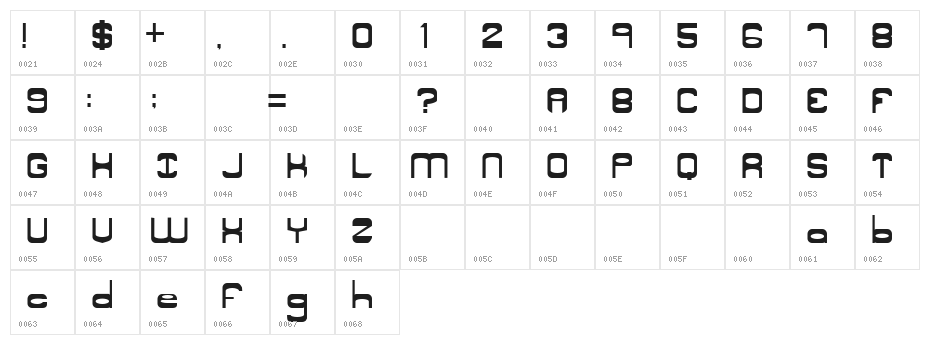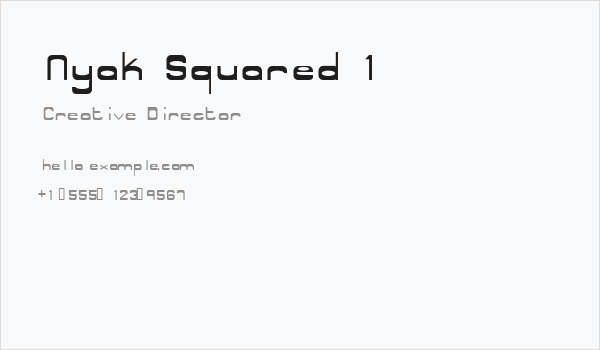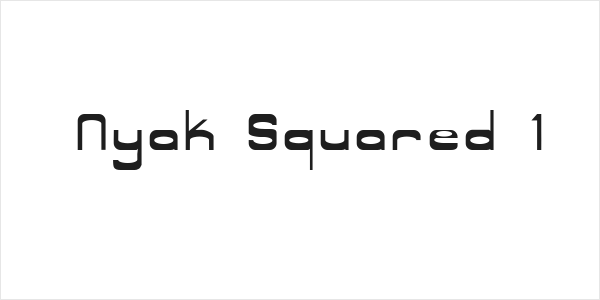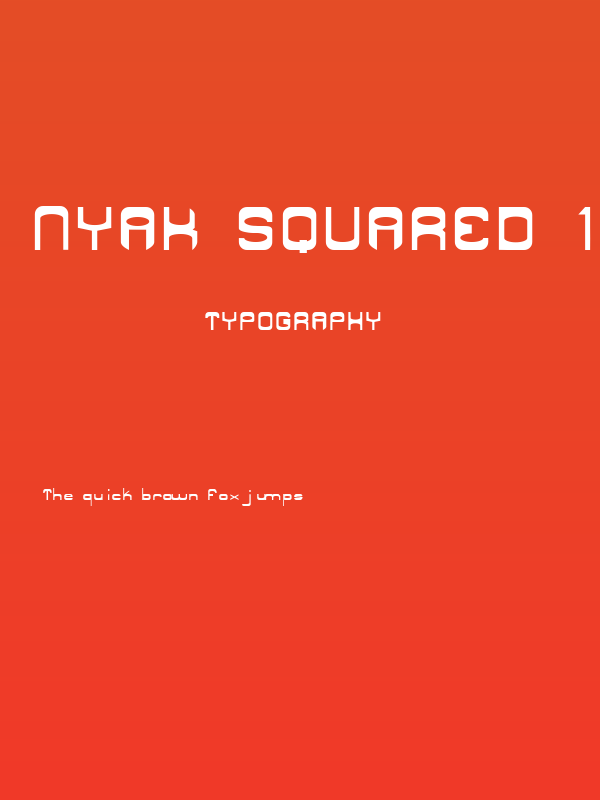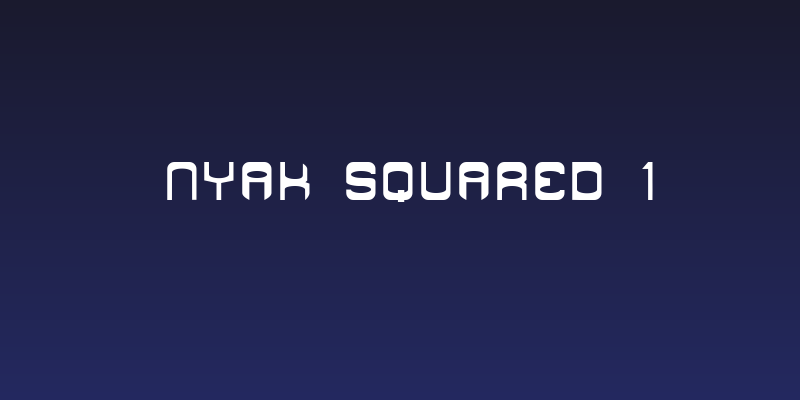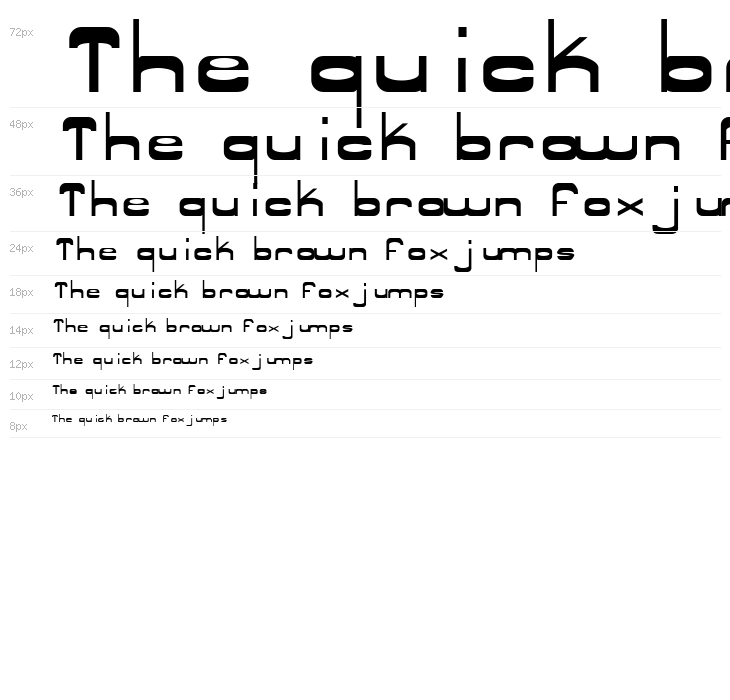
Nyak Squared 1 Font
Nyak Squared 1 Description
This font features a modern, geometric design with a squared aesthetic, characterized by its bold and uniform strokes. The uppercase letters are distinct with sharp angles and a consistent height, creating a strong visual impact. Lowercase letters maintain the geometric theme, offering a cohesive look across different text sizes. The numerals are equally bold and geometric, ensuring readability and style. Special characters are designed to match the overall aesthetic, making them suitable for various applications. The font's clean lines and structured appearance make it ideal for contemporary design projects.
| Proposed Projects | Ideal for branding, headlines, posters, and digital media where a modern and bold statement is needed. |